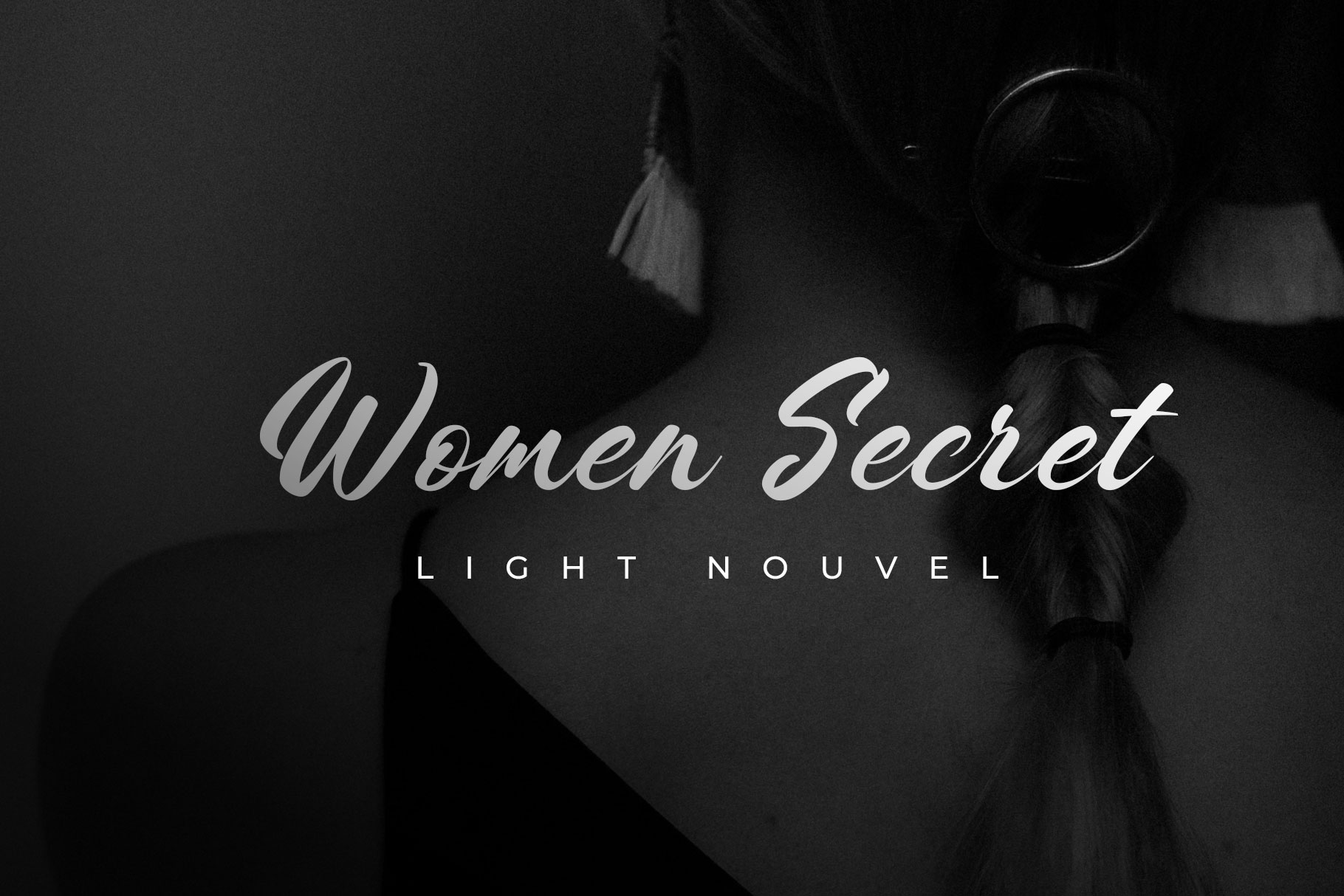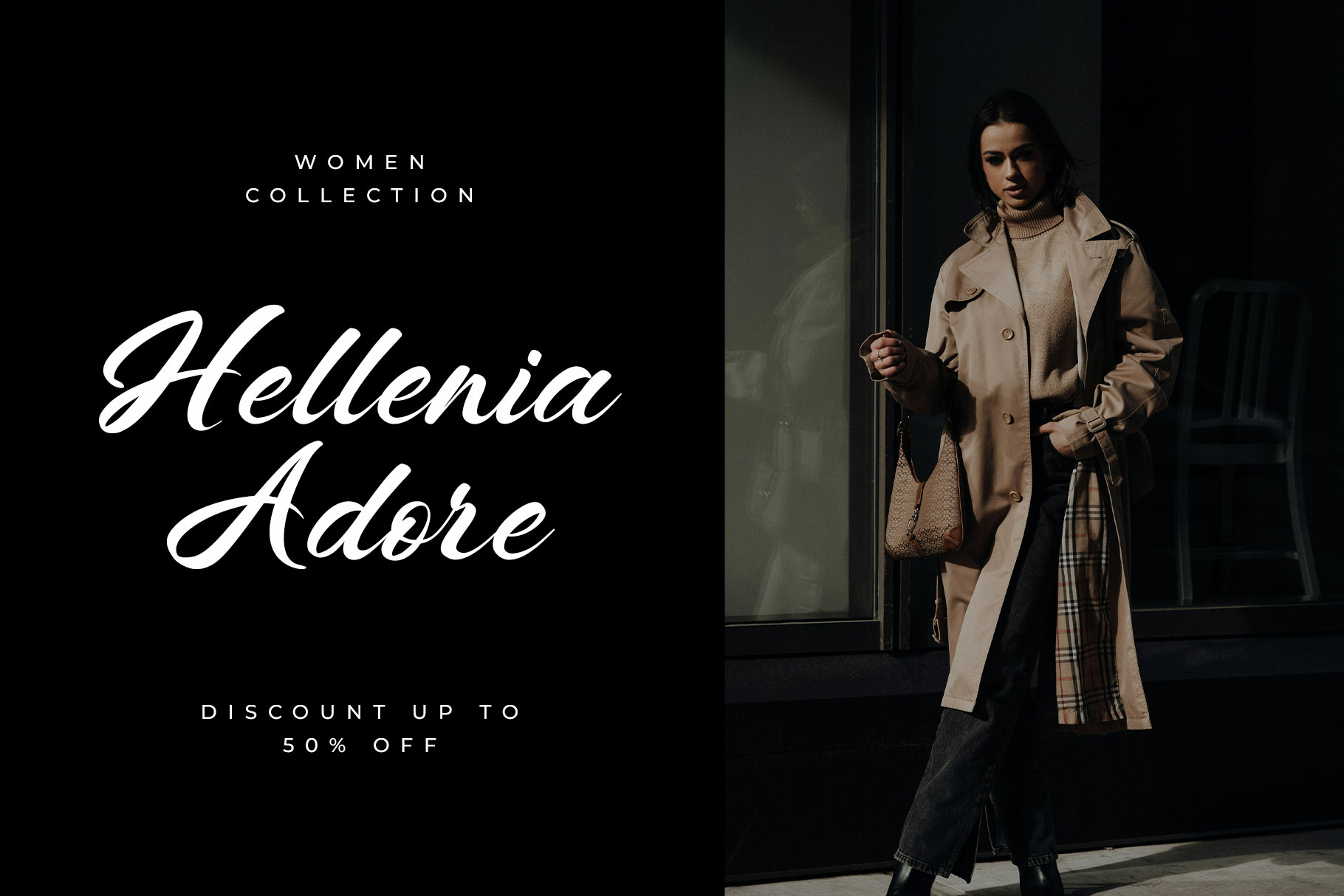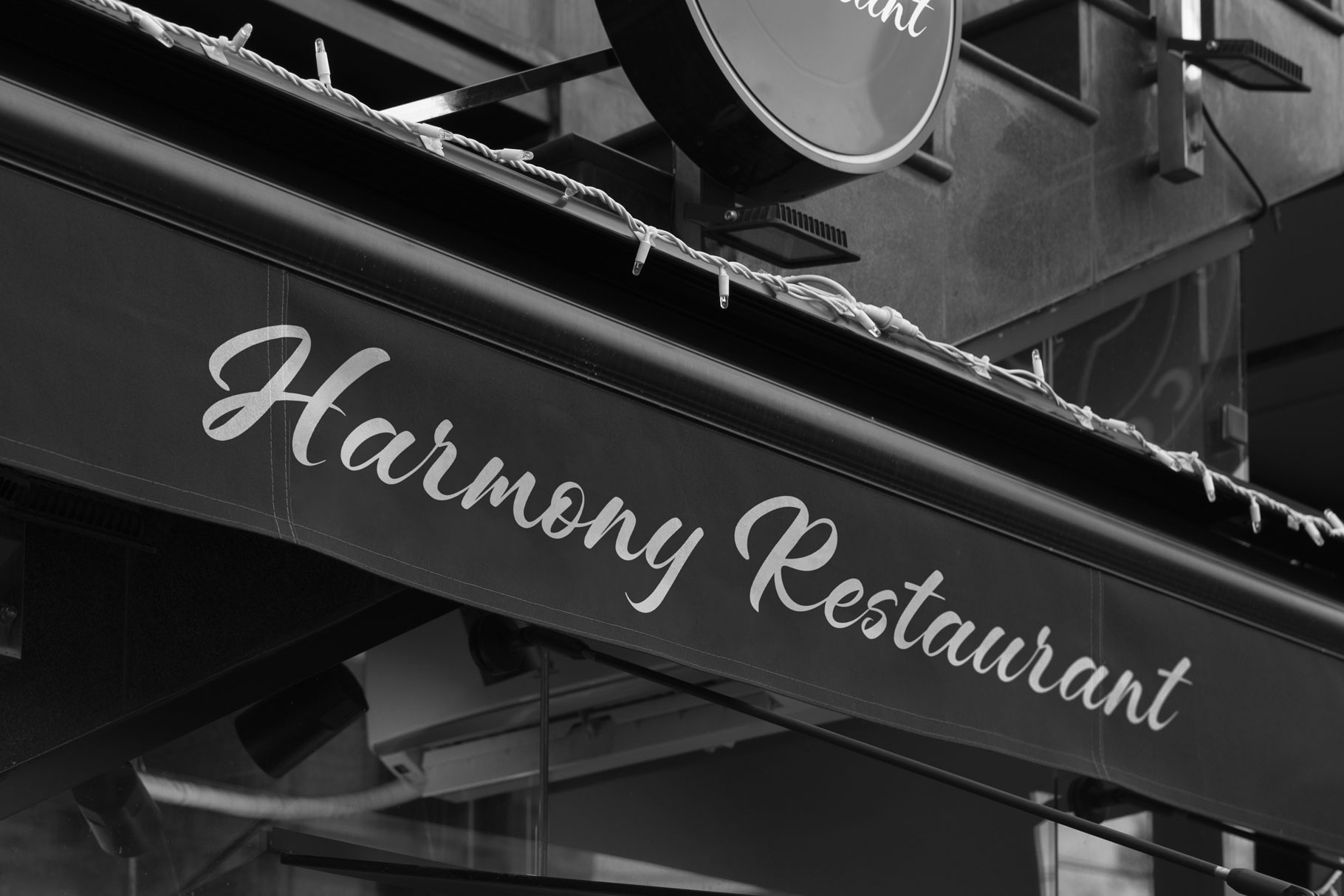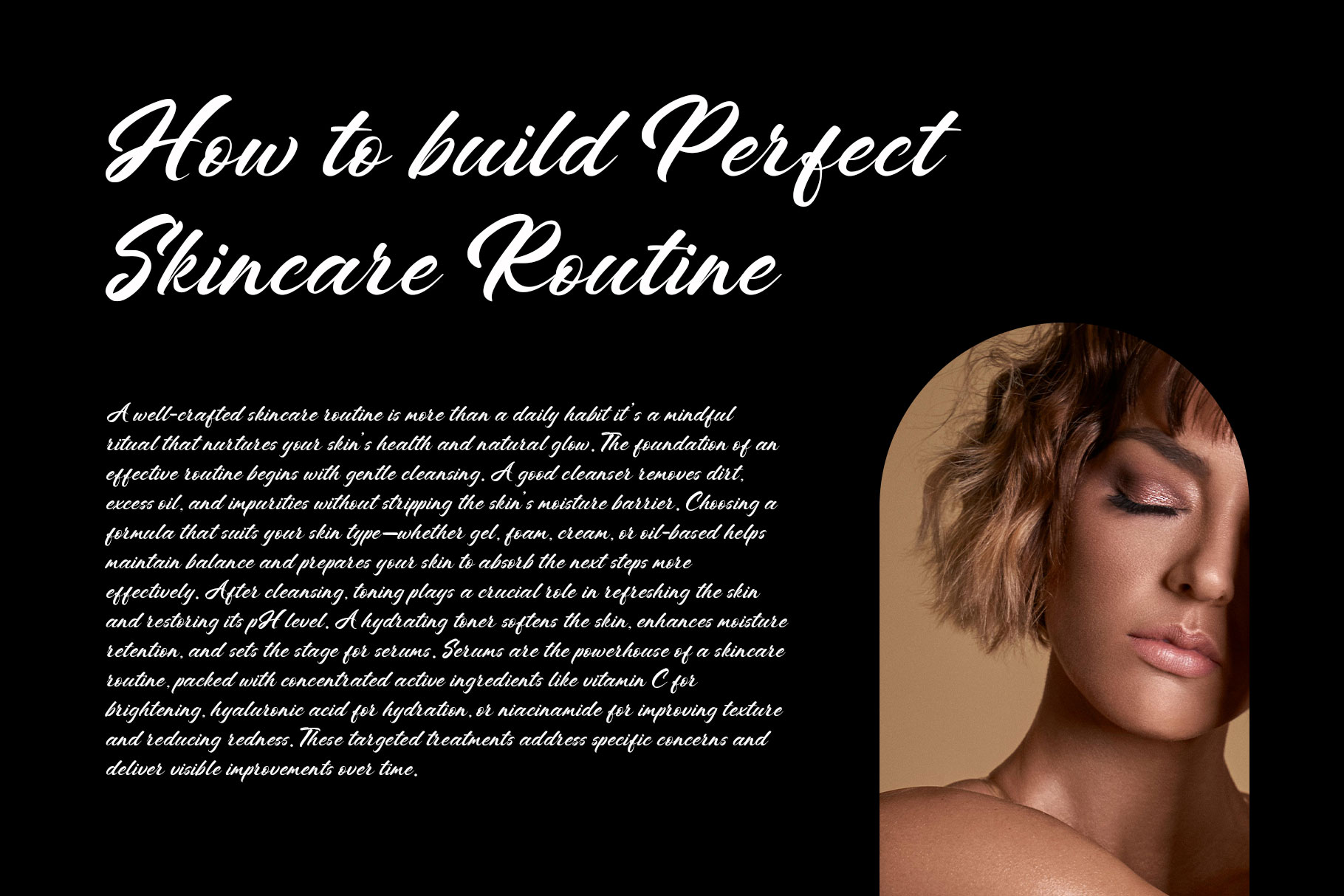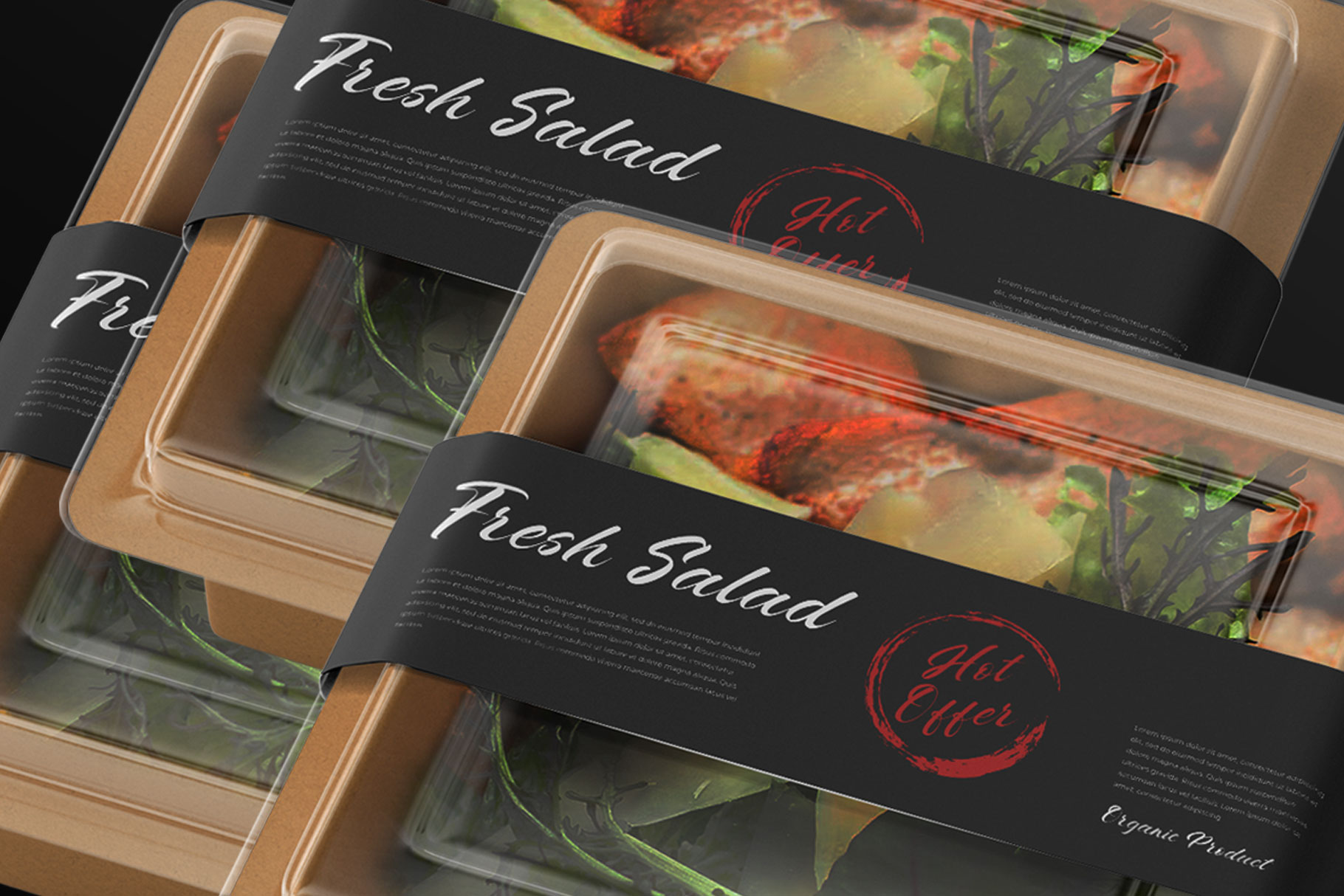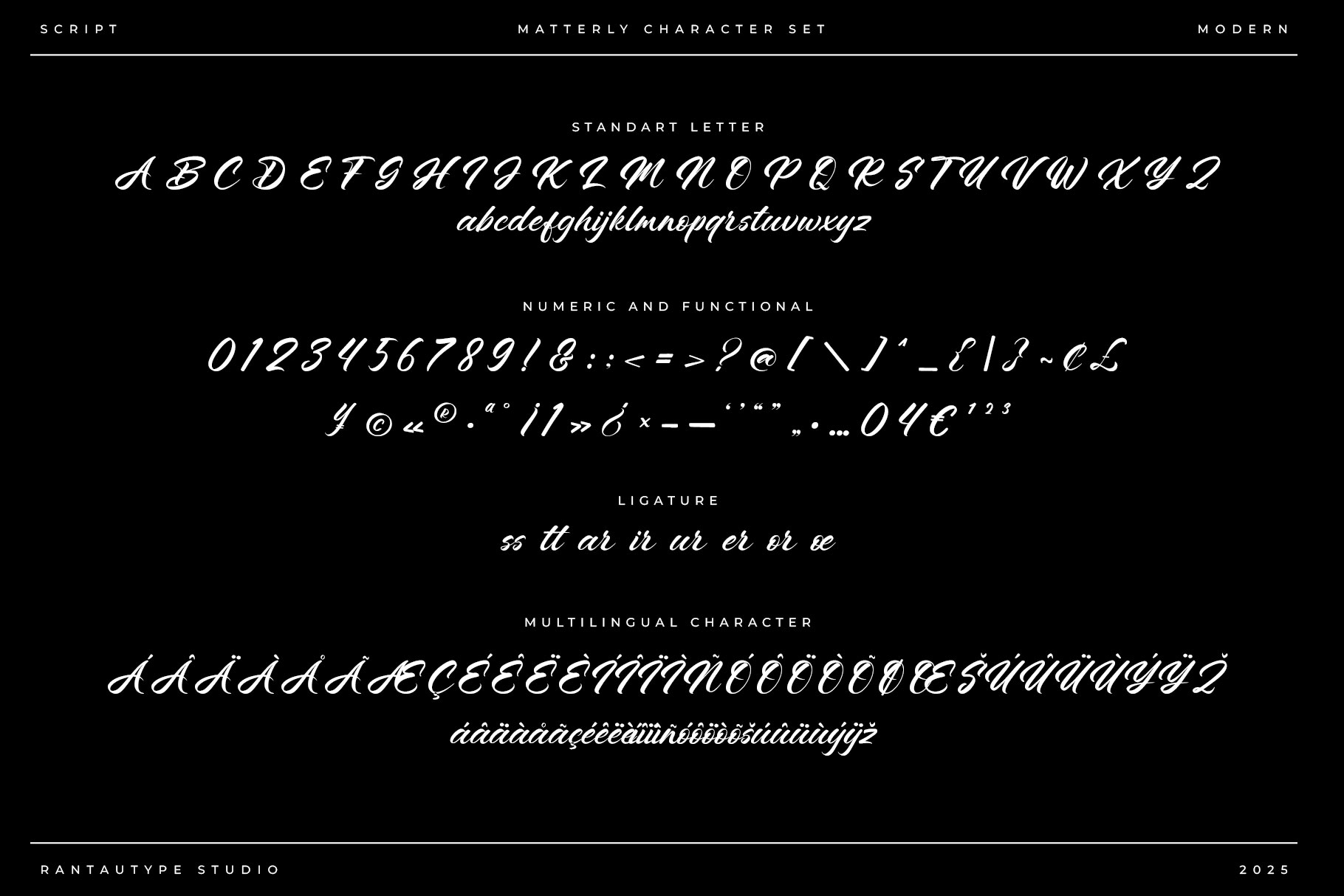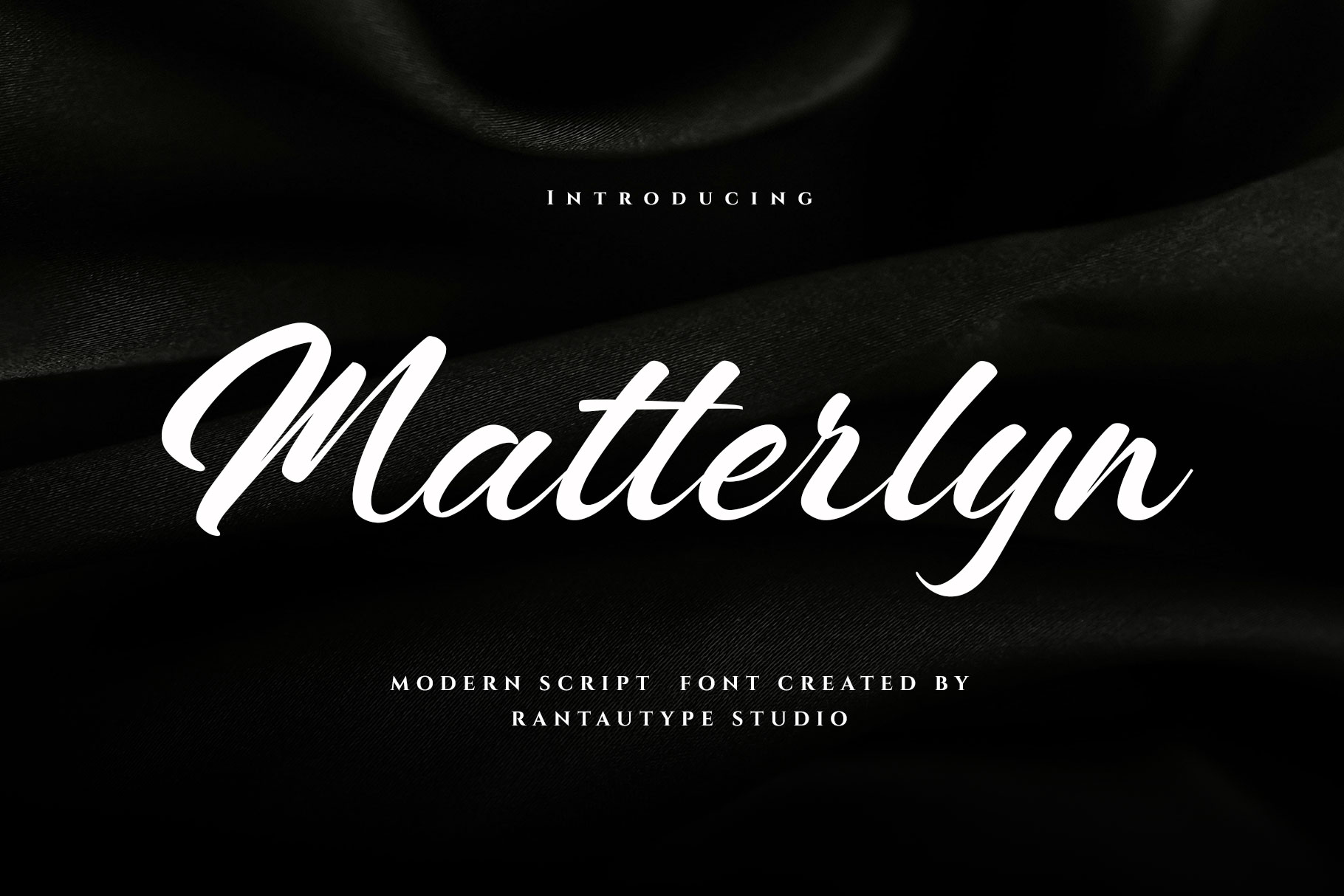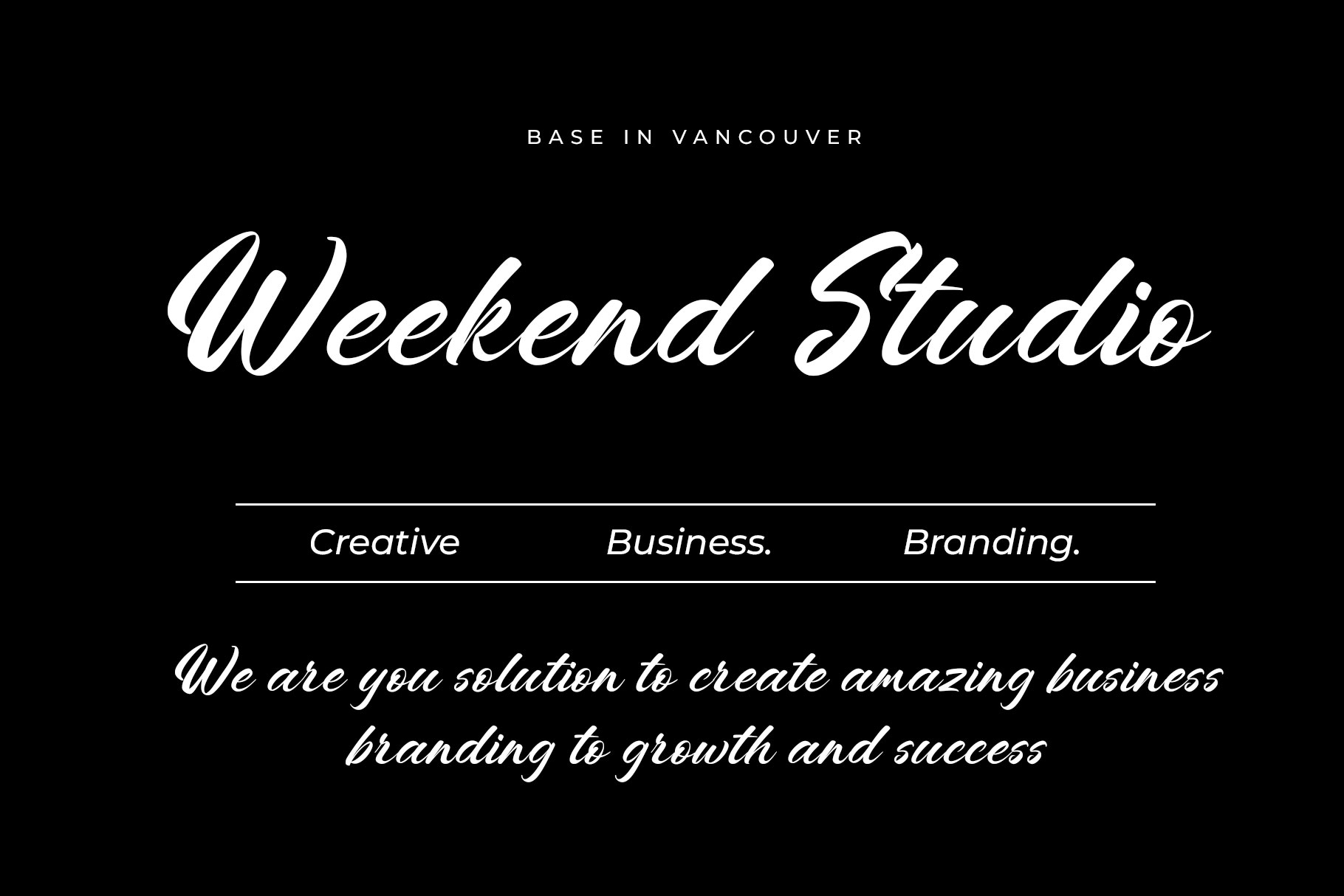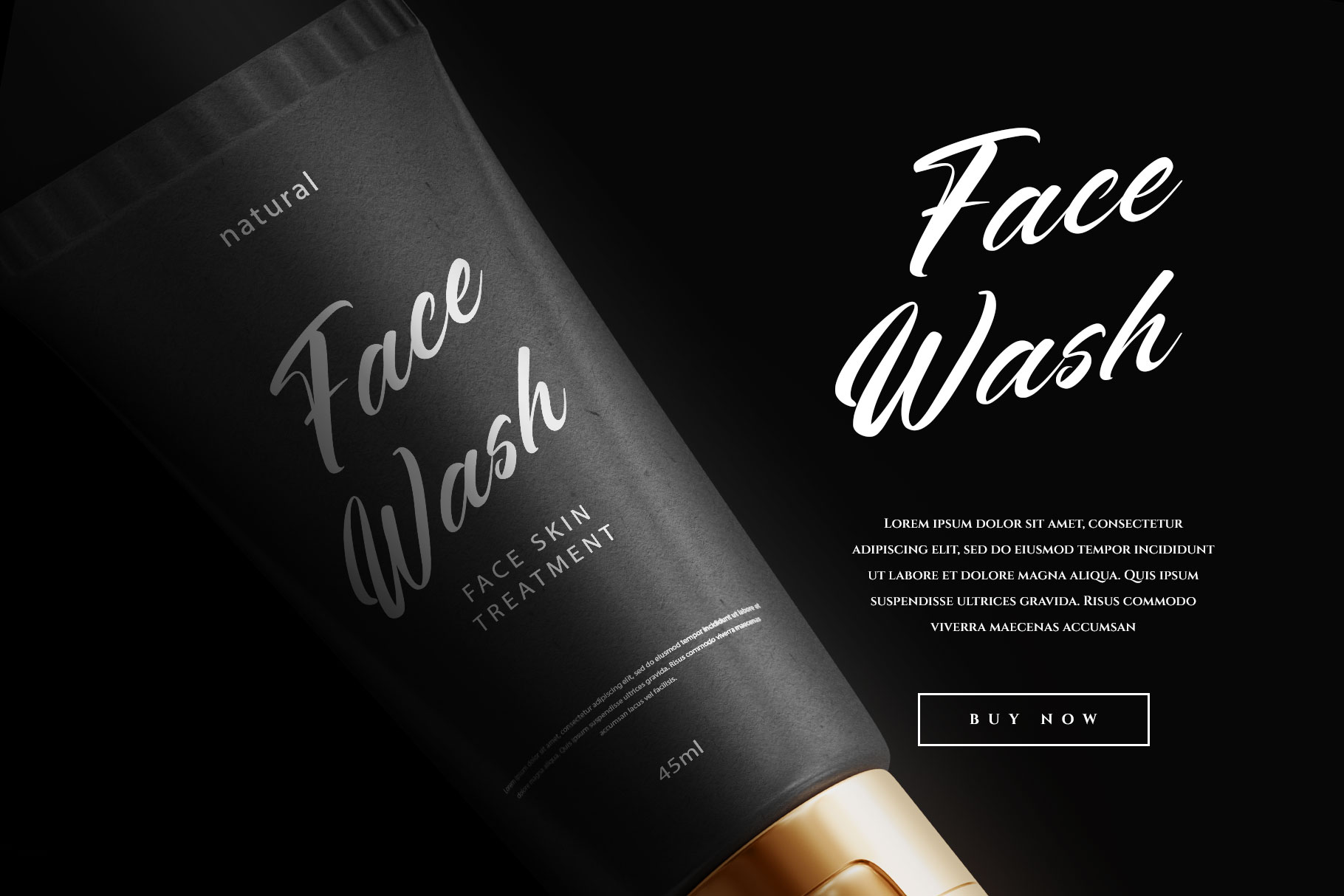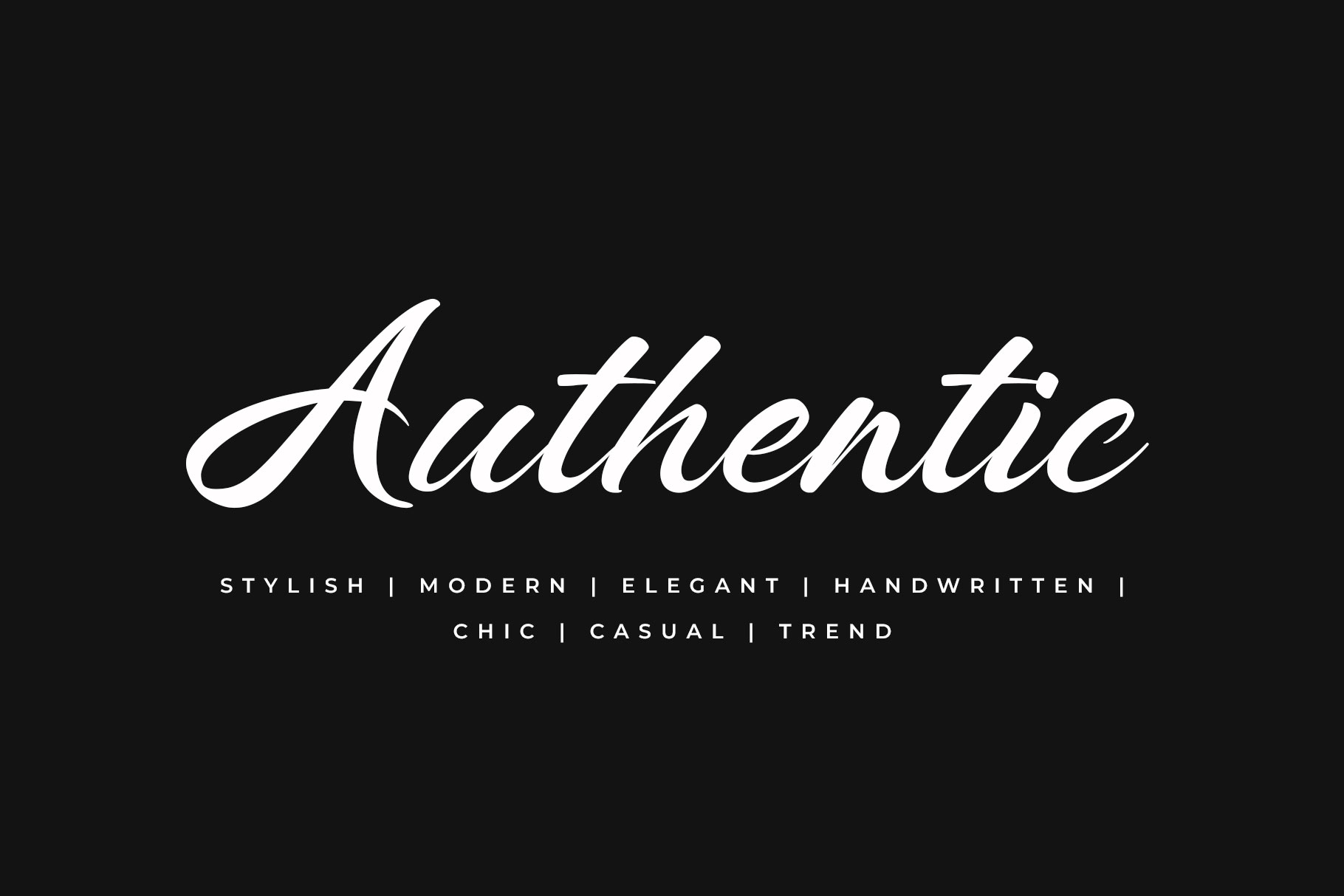
Matterlyn Modern Script Font
Matterlyn is captures the charm of natural handwriting while embracing a clean, contemporary aesthetic. Matterlyn bring relaxed yet stylish, this type of font reflects authenticity, creativity, and a friendly personality.
Matterlyn is a perfectly choice for any creative endeavor, creating, modern, lifestyle design such as logotype, title, cover, branding, invitations, wedding designs, display and magazine, social media posts, advertisements, printed quotes, product packaging, corporate brand, product designs, labels, photography, watermarks, special events and any other project with elegant touch.